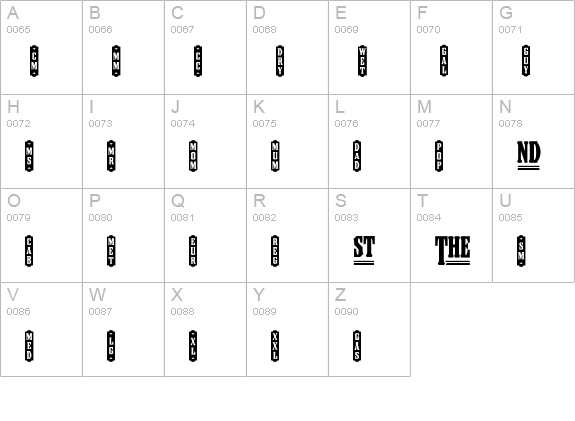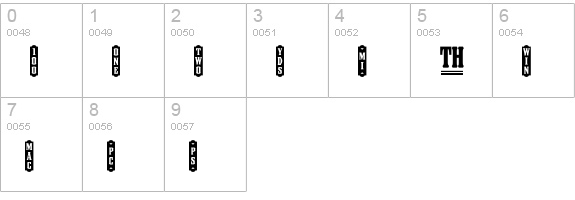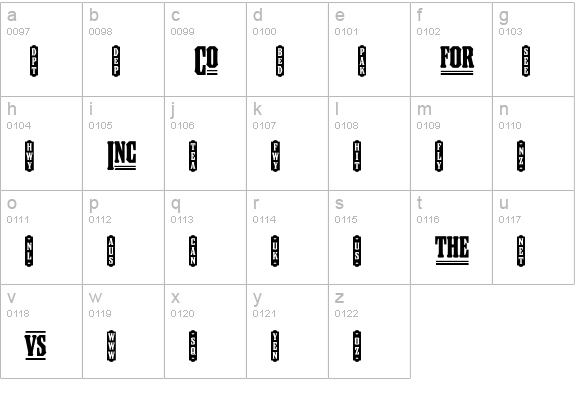
CouncilWordLogosTwo Font Details
CouncilWordLogosTwo font is a modern and stylish typeface that is perfect for creating eye-catching logos and wordmarks. With its clean lines and contemporary design, this font exudes professionalism and sophistication. The versatility of CouncilWordLogosTwo font makes it suitable for a wide range of design projects, from branding to advertising. What sets CouncilWordLogosTwo font apart is that it is available for free download at FontsMarket.com. This means that you can easily access this high-quality font without any cost, making it a valuable addition to your font collection. Whether you are a designer working on a new project or a business owner looking to refresh your branding, CouncilWordLogosTwo font is a fantastic choice that won't break the bank. Download it today and elevate your designs with this stylish and elegant font.